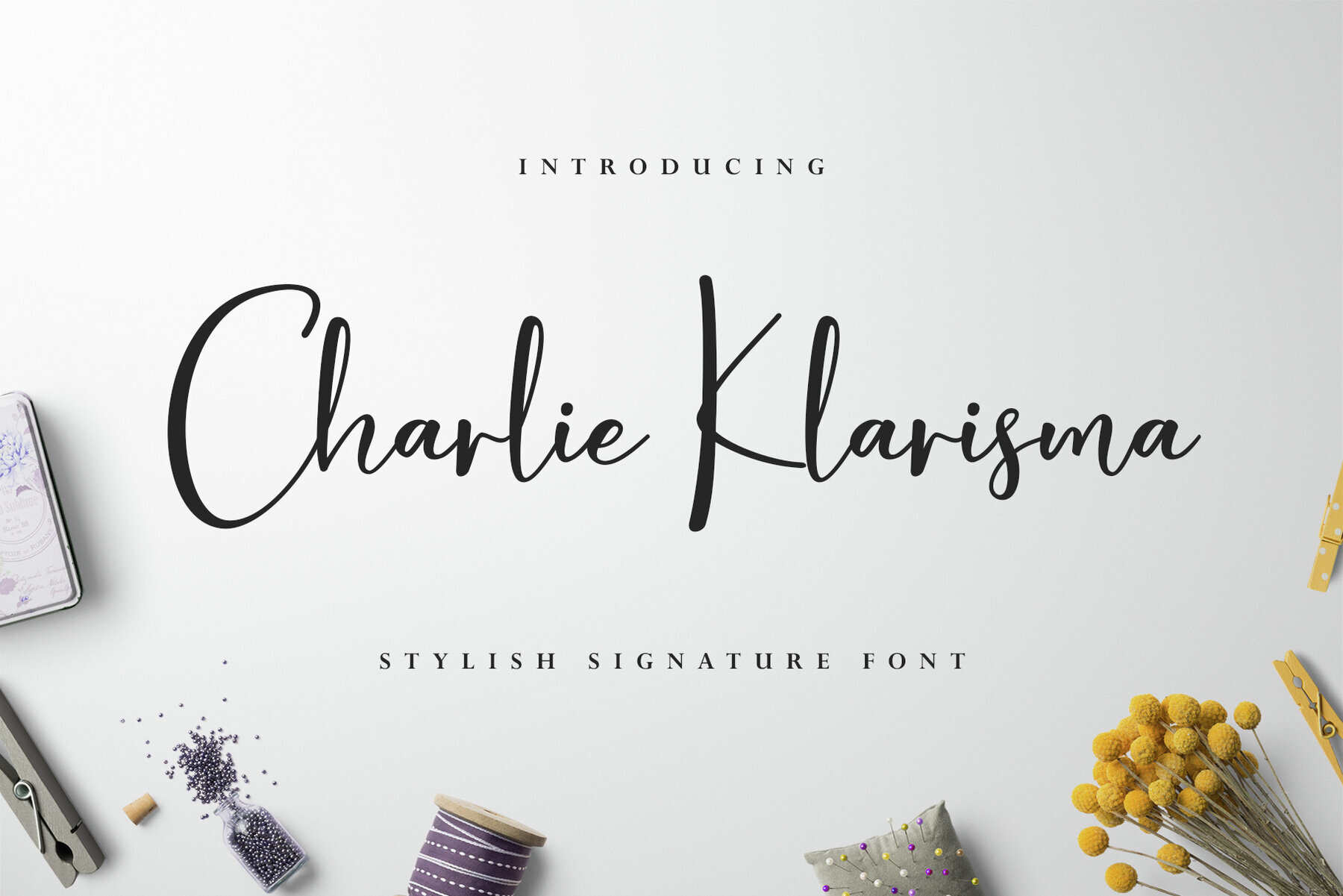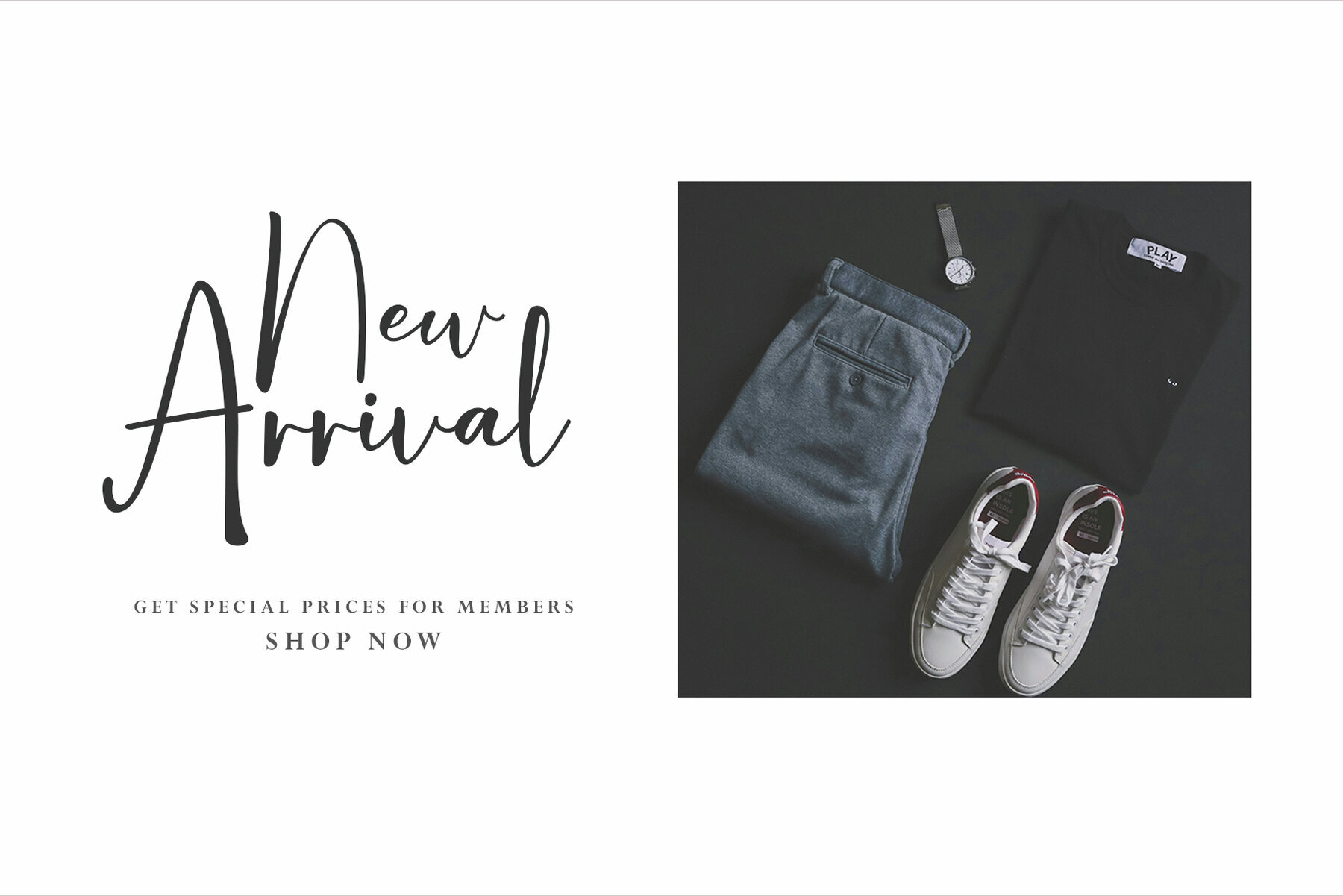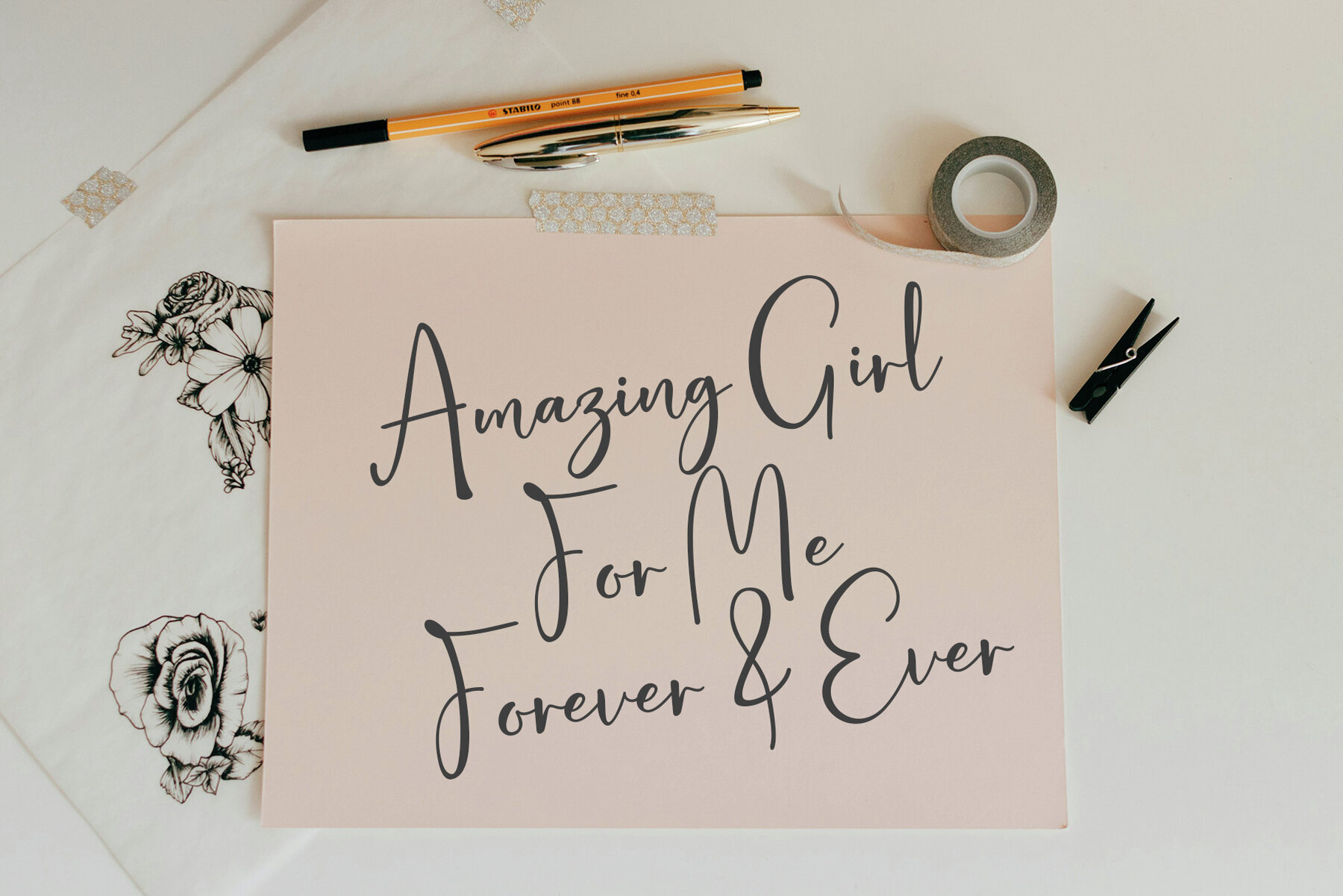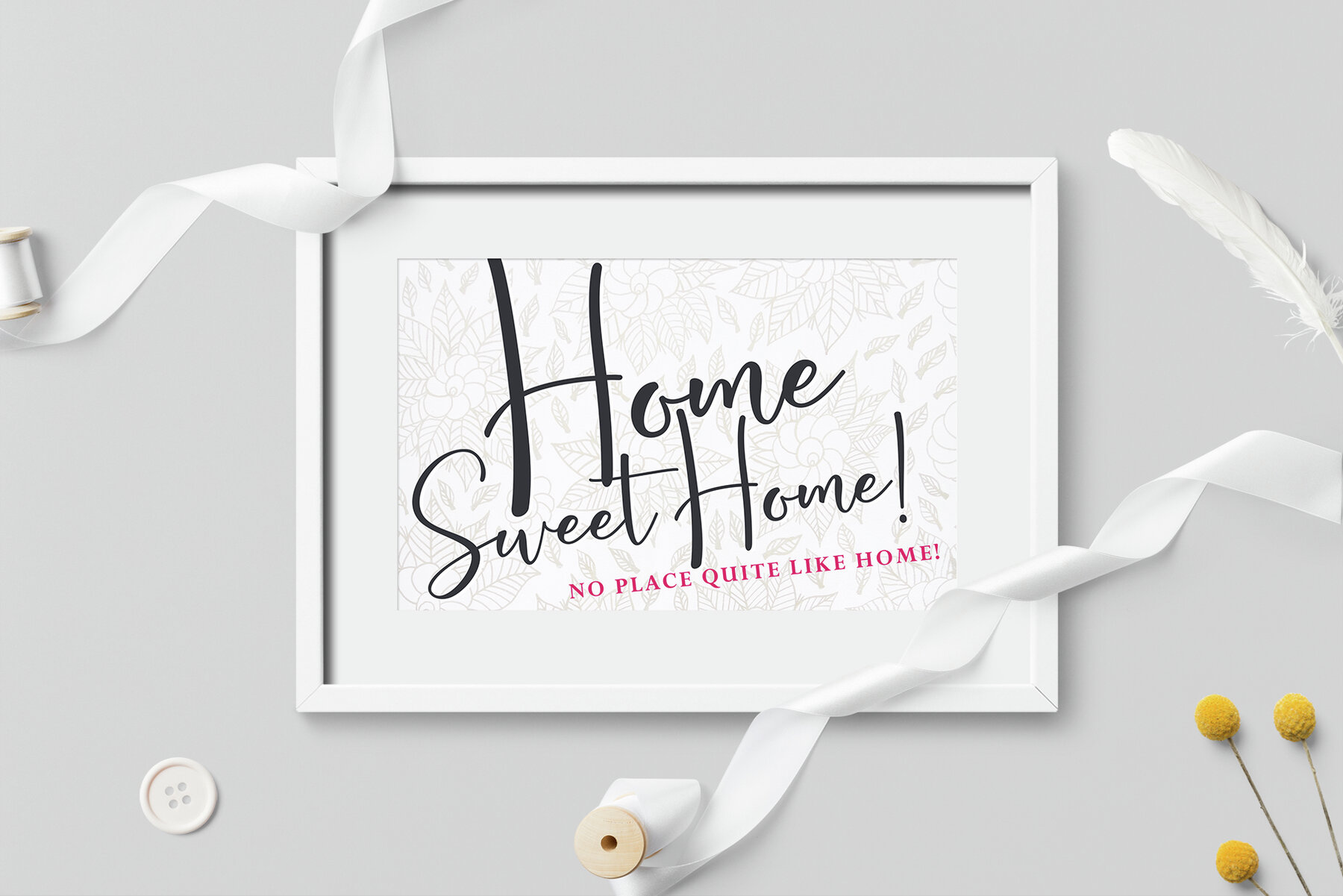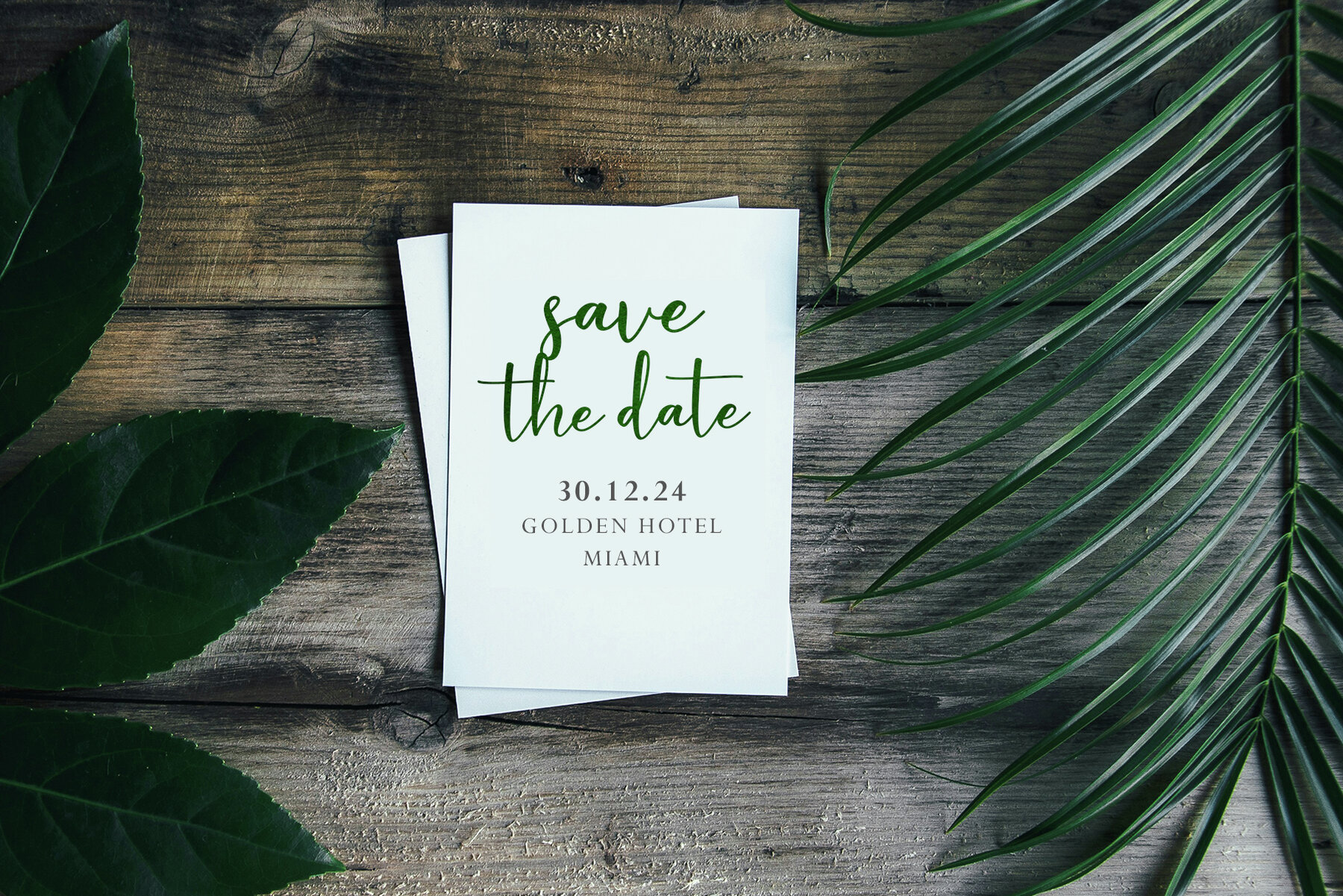
Charlie Klarisma Font
Charlie Klarisma Signature
Charlie Klarisma is a fresh and elegant script font capturing the essence of handwritten signature style. Its natural, stylish curves make it perfect for projects that require a personal touch.Charlie Klarisma: A Modern Script Font